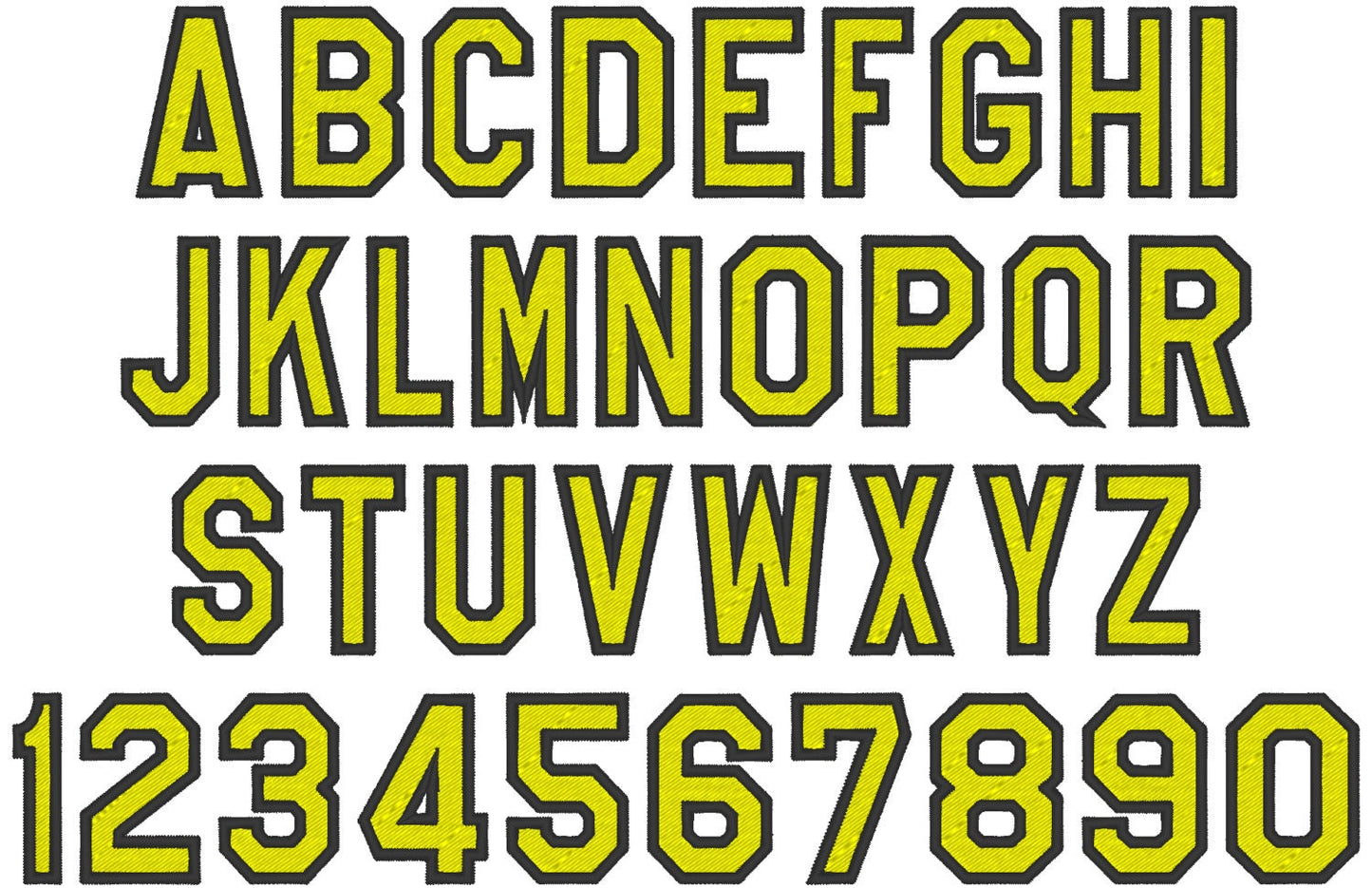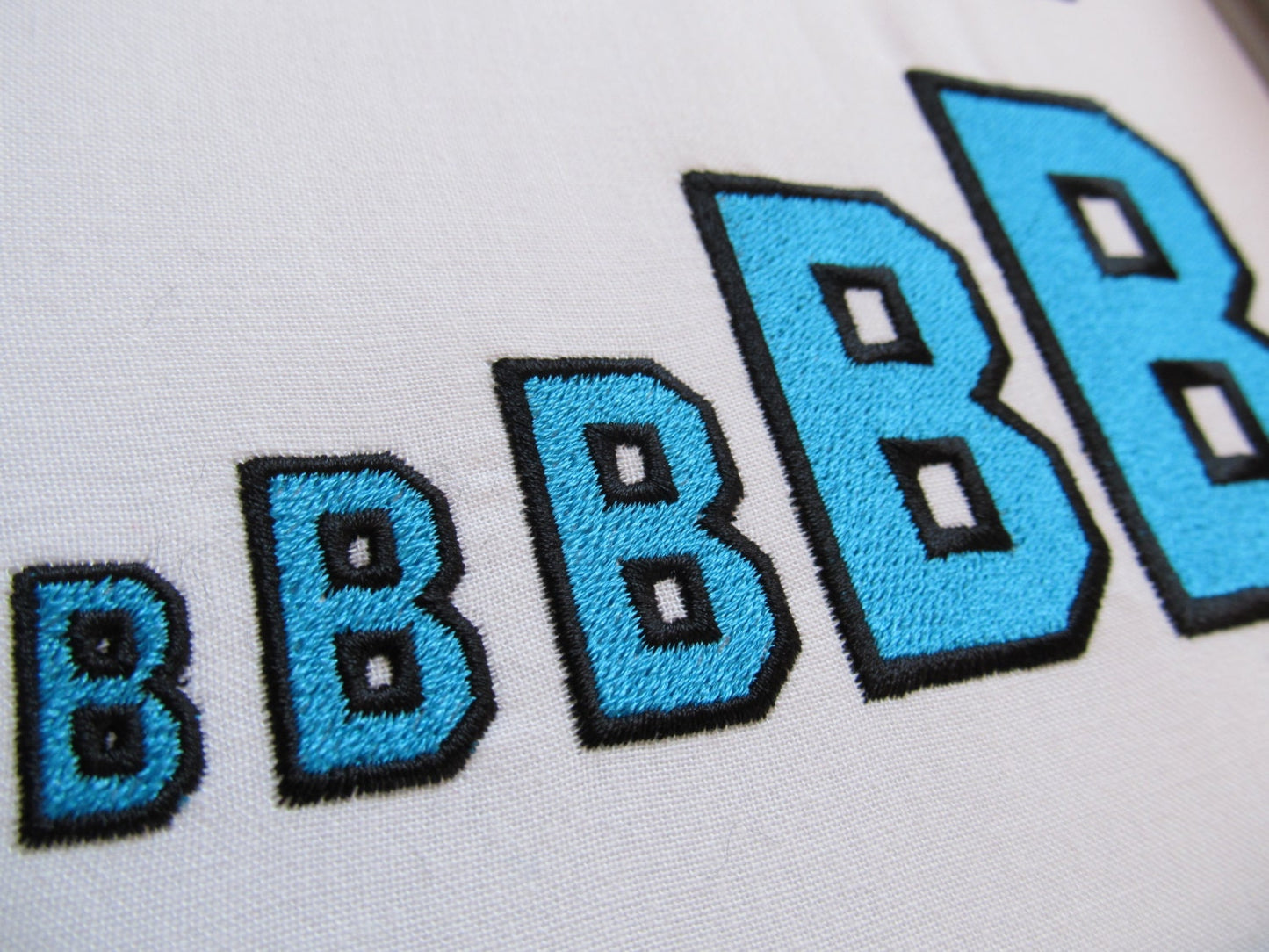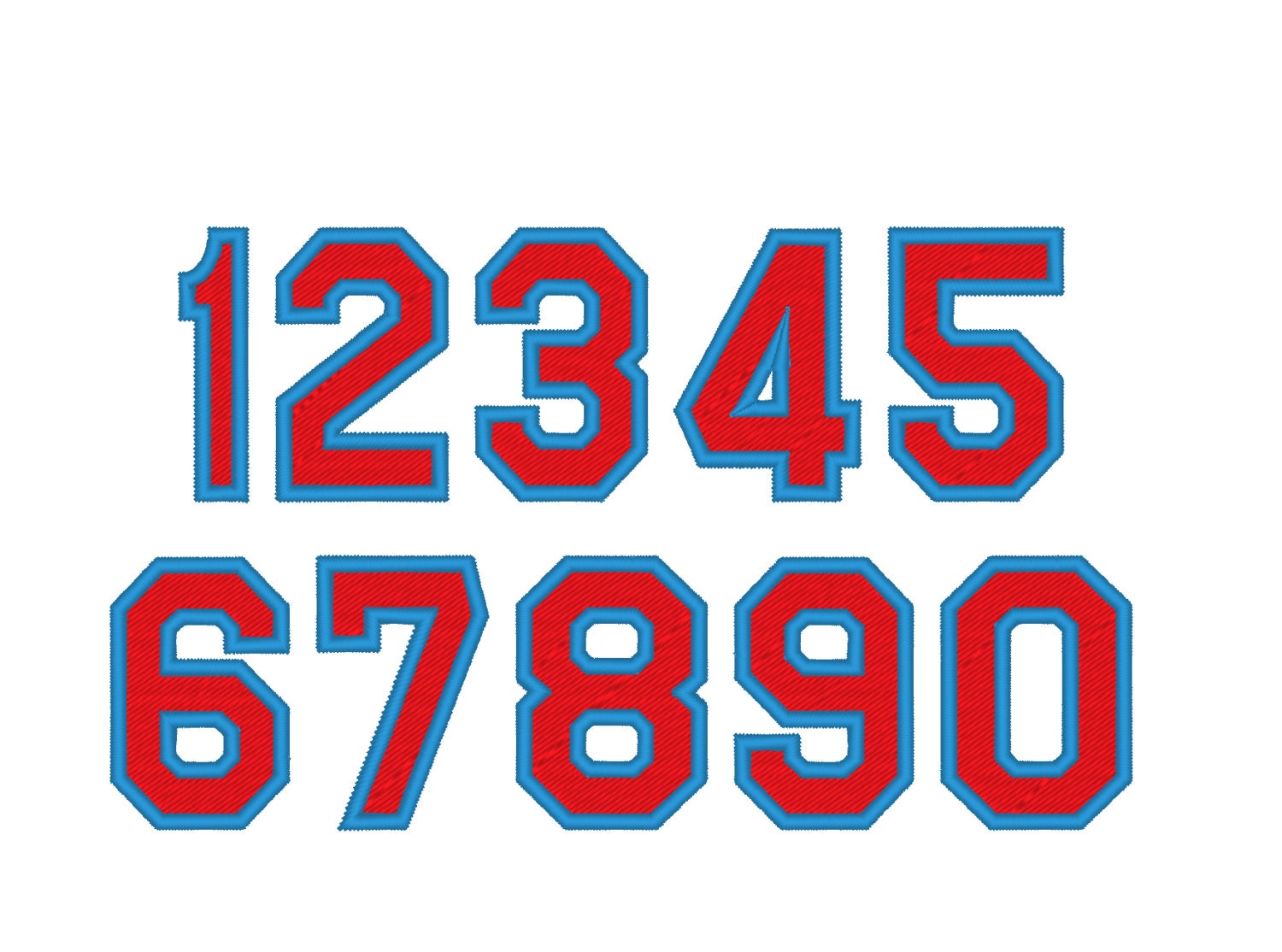
Or click to open the linkA two-color varsity collegiate block font in fill stitch with an outline. Made for team shirts, jerseys, caps and sports gifts.
The letters and numbers come in ten sizes: 0.5, 0.8, 1, 1.3, 1.5, 2, 2.5, 3, 3.5 and 4 inches. Numbers also come in big sizes of 6, 7 and 8 inches for jersey backs. Includes uppercase letters A to Z and numbers 0 to 9.